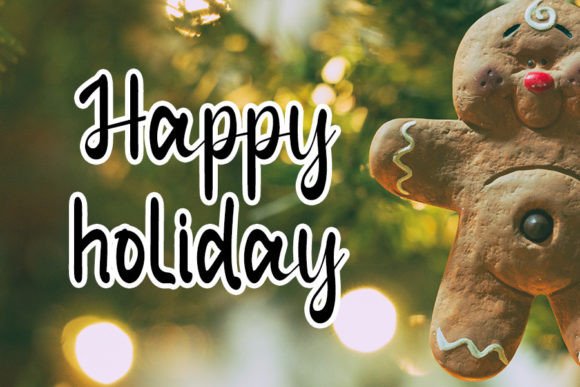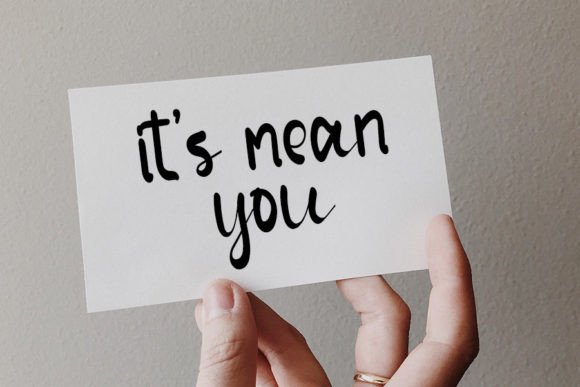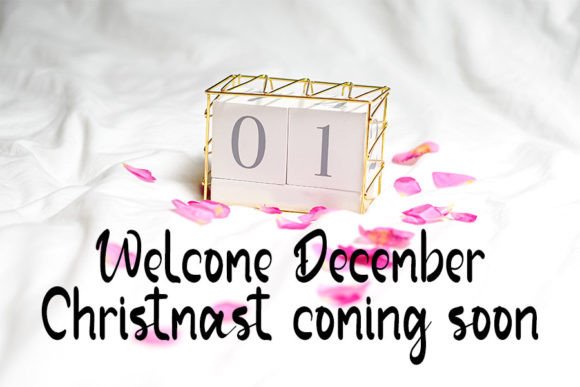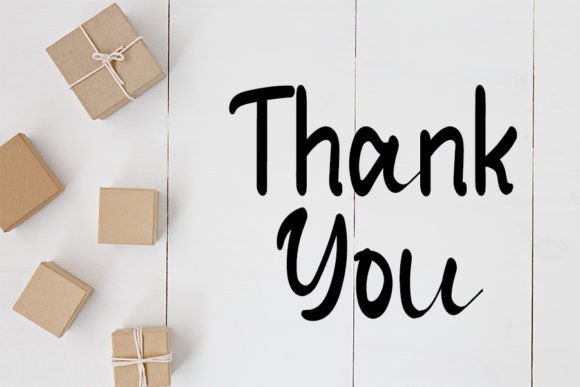
Introducing December Font: Elevate Your Designs with Timeless Elegance
In the world of typography, a font can make all the difference in the aesthetic and appeal of a design project. For those seeking a stylish, handwritten font that exudes a contemporary atmosphere while paying homage to classic calligraphy, December Font is an exceptional choice. This beautifully crafted font is designed to bring an air of sophistication and elegance to a wide range of projects, from creative crafts to professional branding.
The Essence of December Font
December Font is characterized by its impeccable form and a balanced, varied design that sets it apart from more generic fonts. Inspired by the timeless beauty of classic calligraphy, it brings a touch of traditional elegance to the modern design landscape. The font’s contemporary vibe ensures it remains versatile and suitable for various applications, whether you’re working on a logo, an invitation, a website, or any other design project that requires a personal touch.
Key Features of December Font
- Stylish Handwritten Design: December Font boasts a stylish, handwritten appearance that adds a personal and unique touch to any project.
- Contemporary Atmosphere: With its clean lines and modern aesthetic, this font is perfect for designers looking to infuse their work with a contemporary feel.
- Timeless Classic Calligraphy Inspiration: Drawing from the elegance of classic calligraphy, December Font brings a sense of tradition and sophistication to your designs.
- Balanced and Varied: The font’s balanced design and varied glyphs ensure that your text remains legible and visually appealing, with just the right amount of character to make your project stand out.
Applications of December Font
The versatility of December Font makes it suitable for a multitude of design projects. Here are some of the areas where this font truly shines:
- Branding and Logos: Create a lasting impression with a logo that combines professionalism with a personal touch.
- Stationery and Invitations: Add a touch of elegance to your wedding invitations, greeting cards, and other stationery.
- Web Design: Enhance the user experience with a font that is both readable and visually appealing on digital platforms.
- Packaging: Stand out on store shelves with packaging that boasts a unique and captivating design.
- Crafts and DIY Projects: Perfect for crafters, December Font can be used in a variety of handmade projects, from journals to home decor.
Why Choose December Font?
In a sea of fonts, December Font stands out for its unique blend of classic inspiration and modern design. Here are a few reasons why designers and crafters alike should consider adding it to their toolkit:
- Unique Aesthetic: Offers a distinctive look that can help your projects stand out.
- High Versatility: Suitable for a wide range of projects, from digital to print.
- Ease of Use: Designed to be user-friendly, making it easy to incorporate into your workflow.
- Support for Various Languages: Catering to a global audience with support for multiple languages.
December Font is more than just a typeface; it’s a design statement. With its stylish handwritten appearance, contemporary vibe, and roots in timeless classic calligraphy, it offers the perfect blend of elegance and modernity. Whether you’re a professional designer working on a client’s branding or a crafter looking to add a personal touch to your DIY projects, December Font is an excellent choice. Elevate your designs with the sophistication and charm that December Font has to offer.